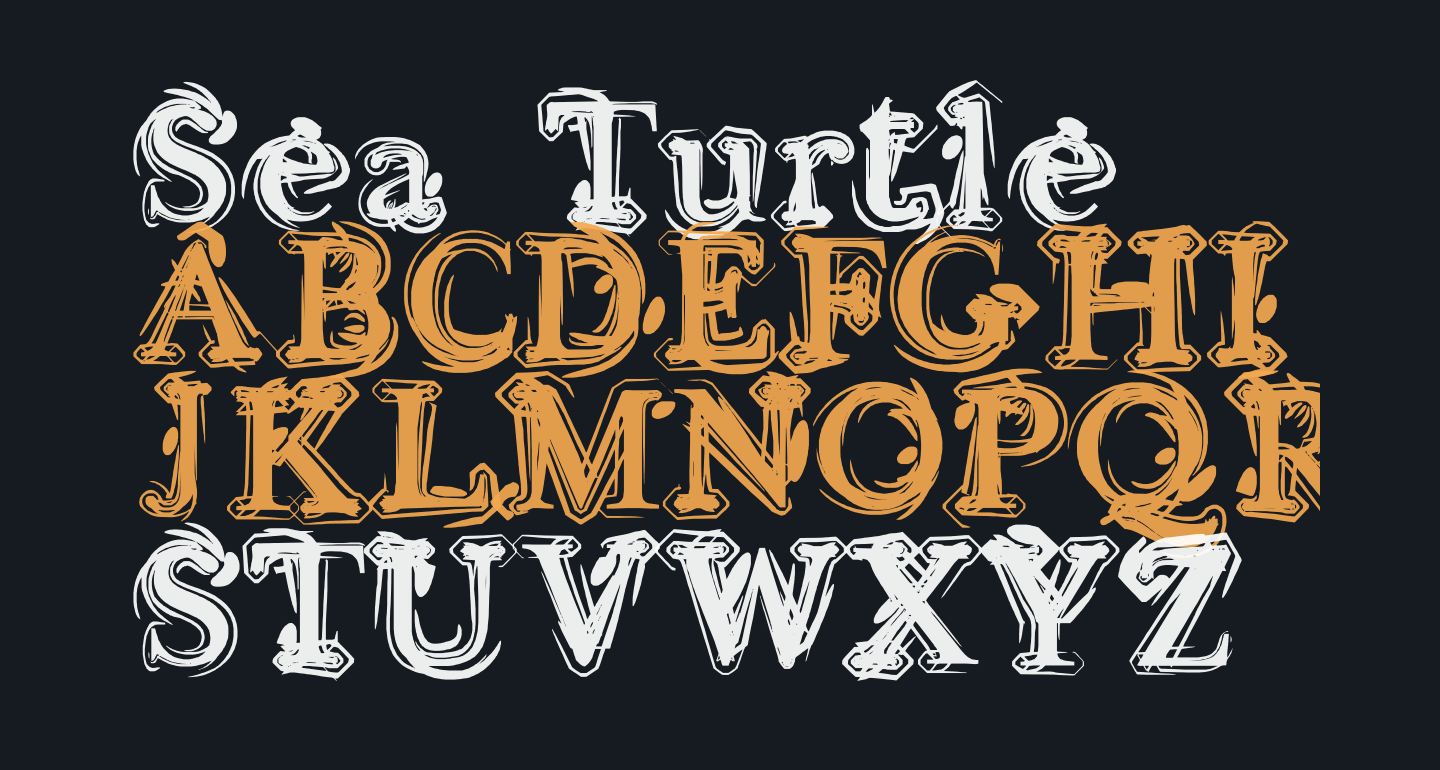
The turtle font is a decorative,fancy type font that can be used on any. Turtles font | dafont.com 11 matching requests on the forum turtles custom preview size turtles à € by pixel sagas in fancy > cartoon 1,032,506 downloads (76. On the saturdays she had to work at a printer, kerrie's mom used to.
Turtle is an incredibly cool color font containing cute turtle prints. Turtle font is a special reptilica font for all turtle fans. Turtles font | dafont.com 11 matching requests on the forum turtles custom preview size turtles à € by pixel sagas in fancy > cartoon 1,032,506 downloads (76.
The turtle font is a decorative,fancy type font that can be used on any. Turtle font is a special reptilica font for all turtle fans. Turtle font mitu 04/16/2022 leave a comment on turtle font posted in script and handwritten.
This Is The Demo, Bare Bones, Version Of Cosmic Turtle.
Teenage mutant ninja turtles, also known as tmnt, is a famous kids cartoon and movie series. Are you looking for the perfect turtle. Whether you use it for custom designs, diy crafts, or just any creation that requires a lovely touch, this font will be.
The turtle display font is a cute and fun decorative font. Whether you use it for custom designs, diy crafts, or just any creation that requires a lovely touch, this font will be an. Turtle arts artist and font designer kerrie carbary has been addicted to the artistic alphabet since she was very small.